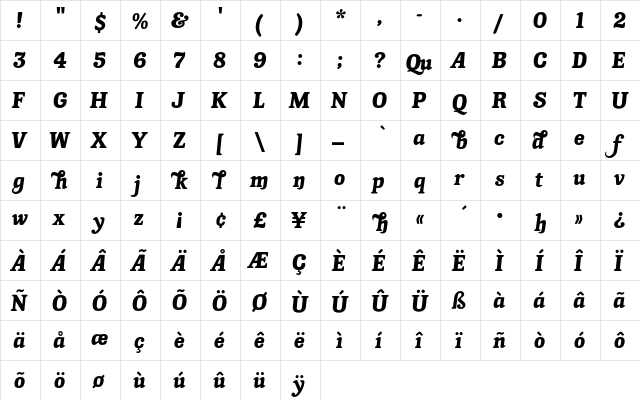
Knightsbridge-Alternate Regular
Design Context for Knightsbridge-Alternate Typeface
Knightsbridge-Alternate offers clean, dependable letterforms without strong stylistic allegiance, making it a practical choice for designers who need flexibility.